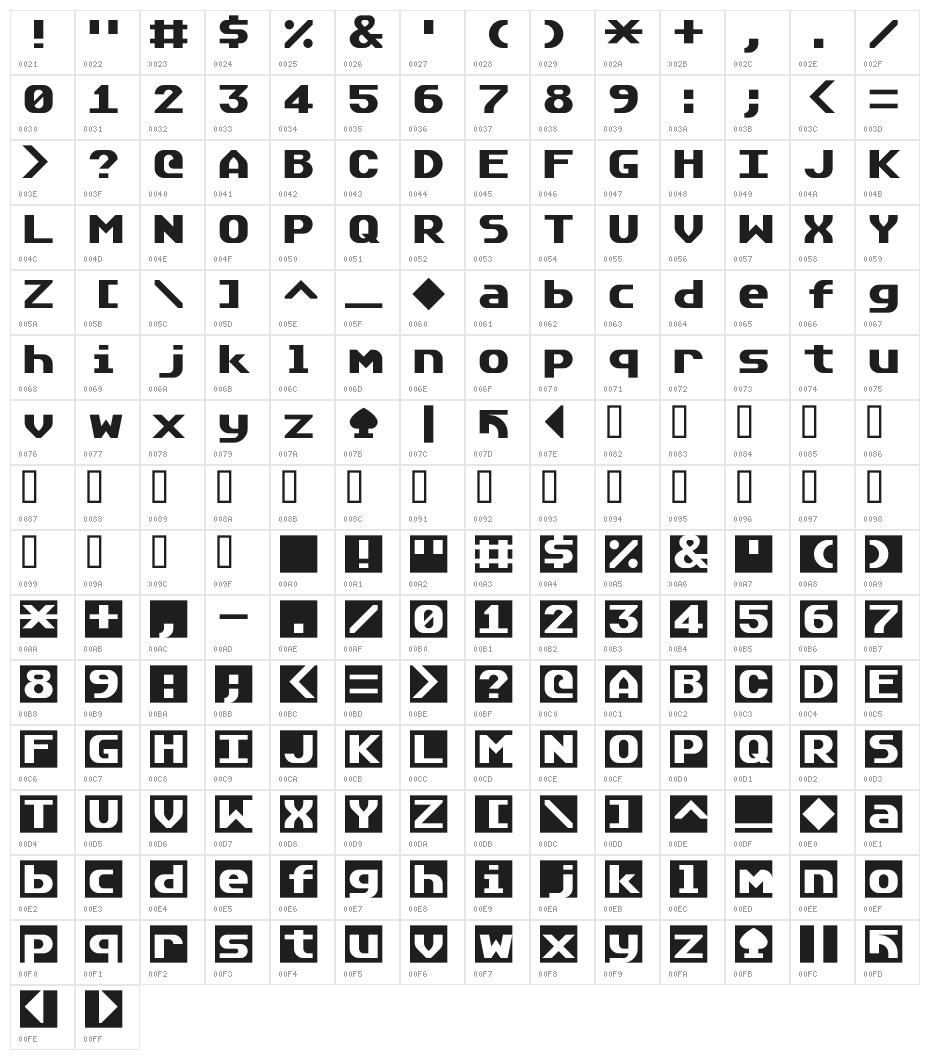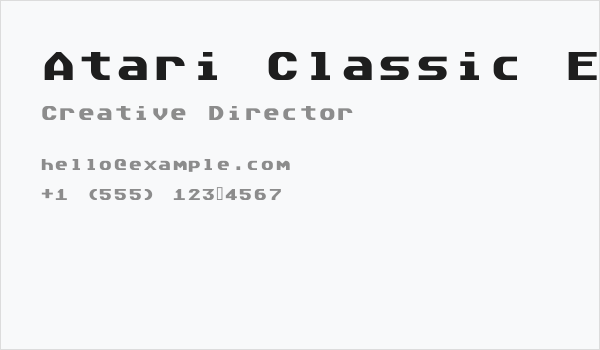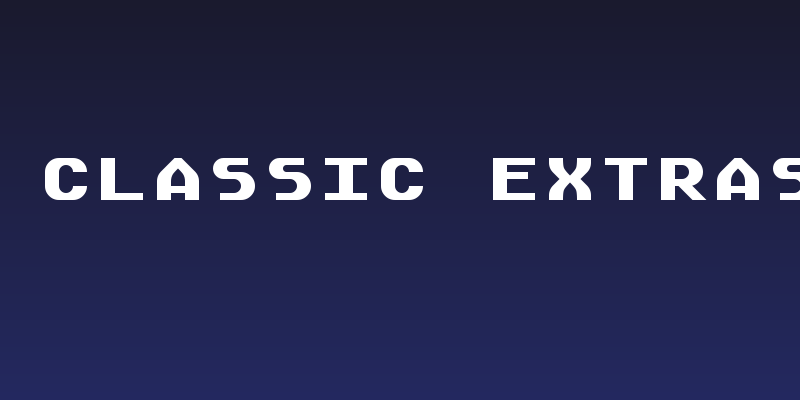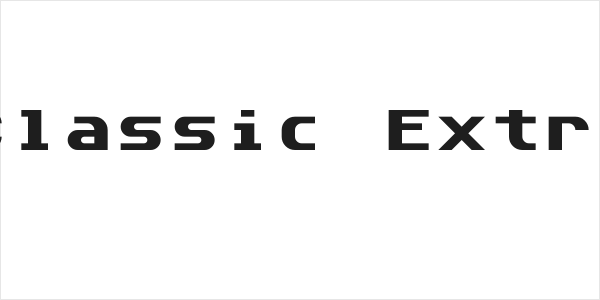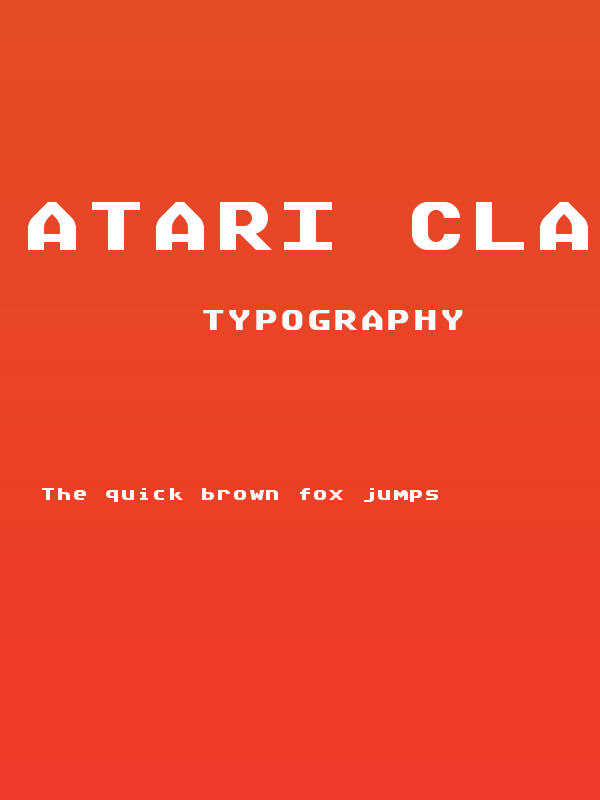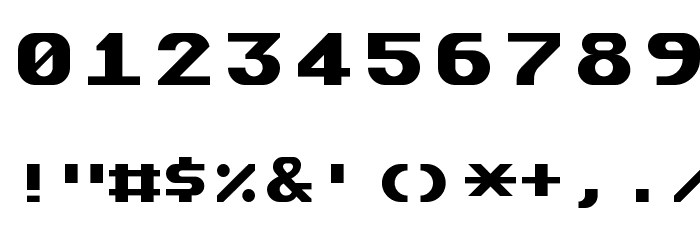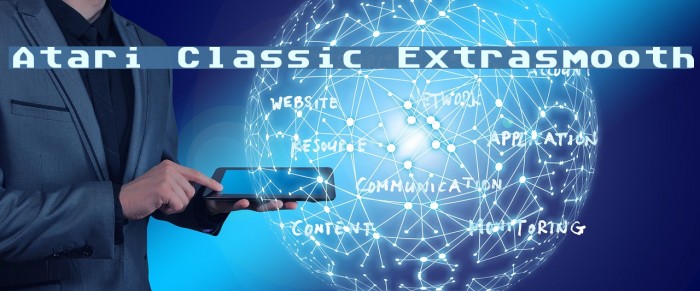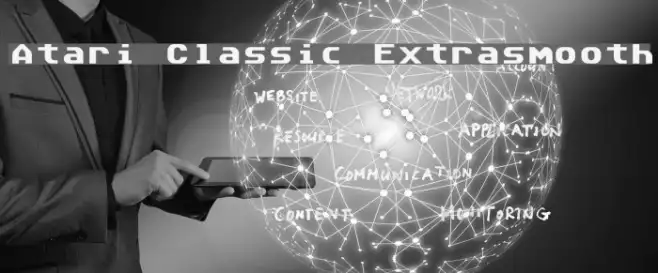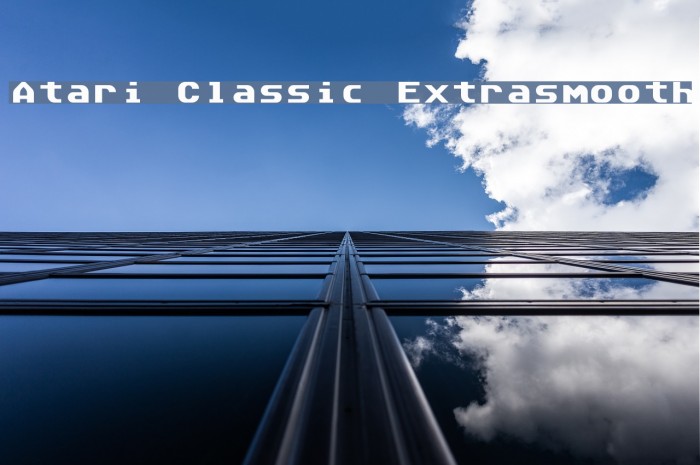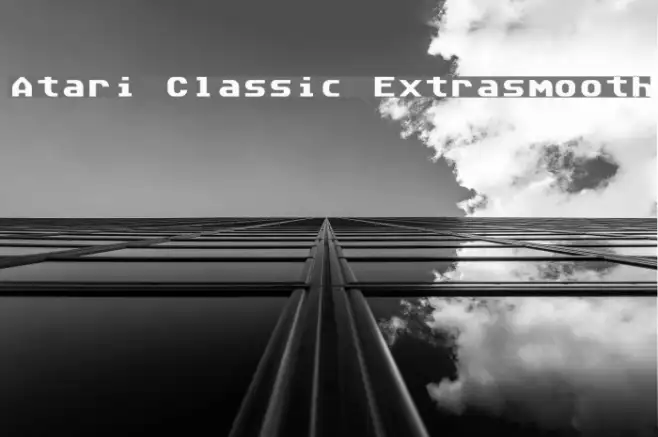
Atari Classic Extrasmooth Font
Atari Classic Extrasmooth Description
This font features a bold, geometric design with a retro aesthetic reminiscent of early video game graphics. The characters are blocky and angular, with a uniform stroke width that gives it a strong, impactful presence. The uppercase and lowercase letters maintain a consistent style, with rounded edges that soften the otherwise rigid structure. The numerals and special characters follow the same design principles, ensuring a cohesive look across all glyphs. This font is ideal for projects that require a nostalgic or vintage feel, particularly those related to gaming or technology.